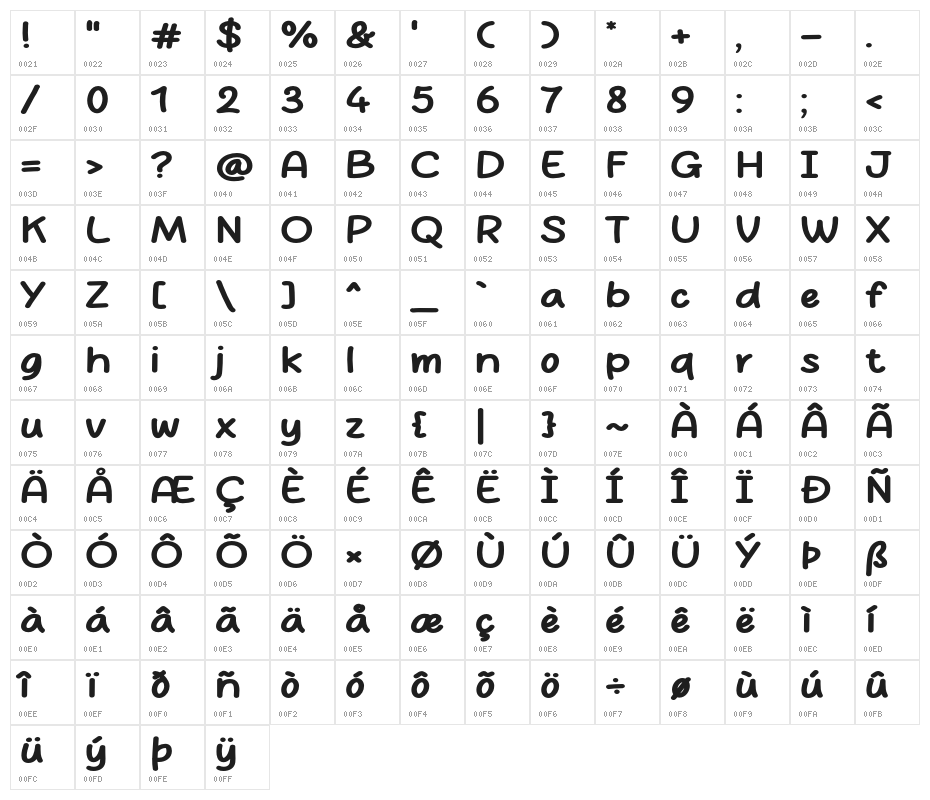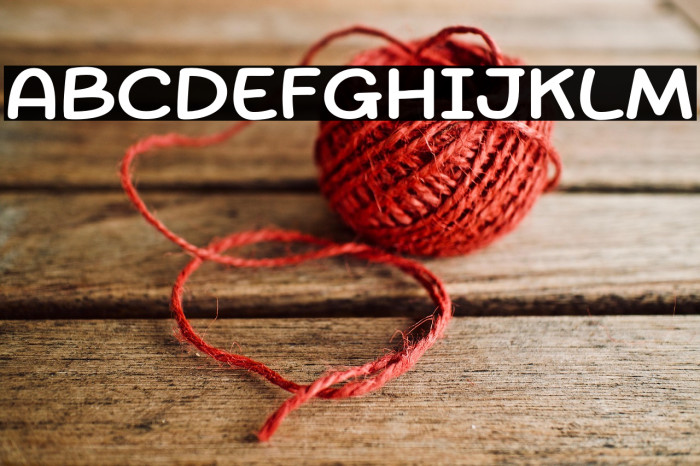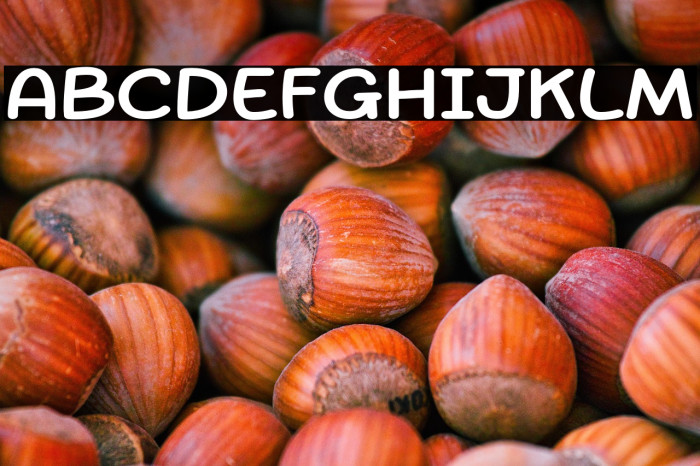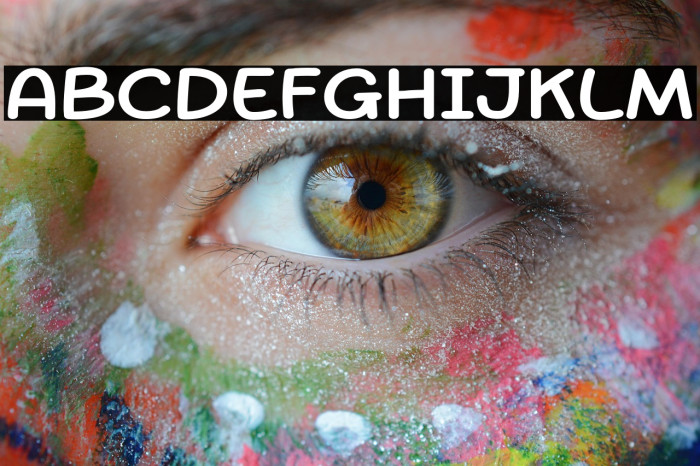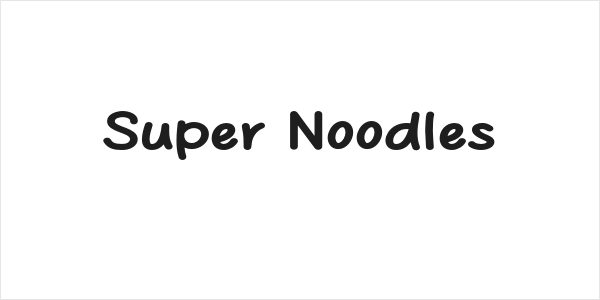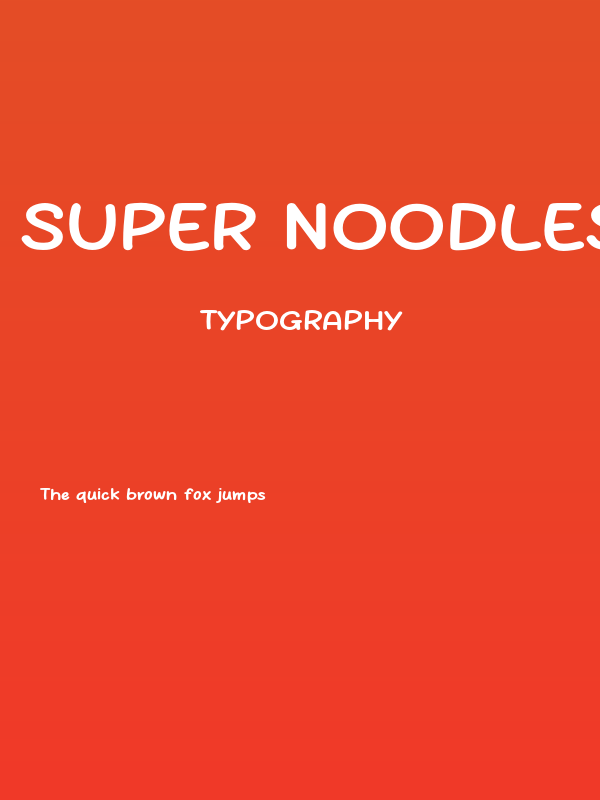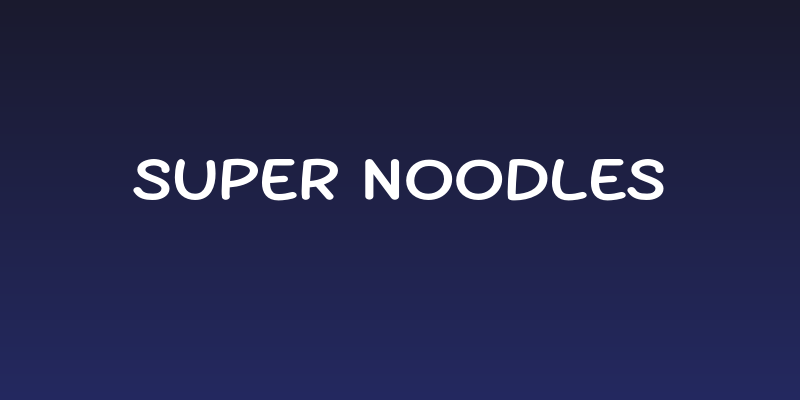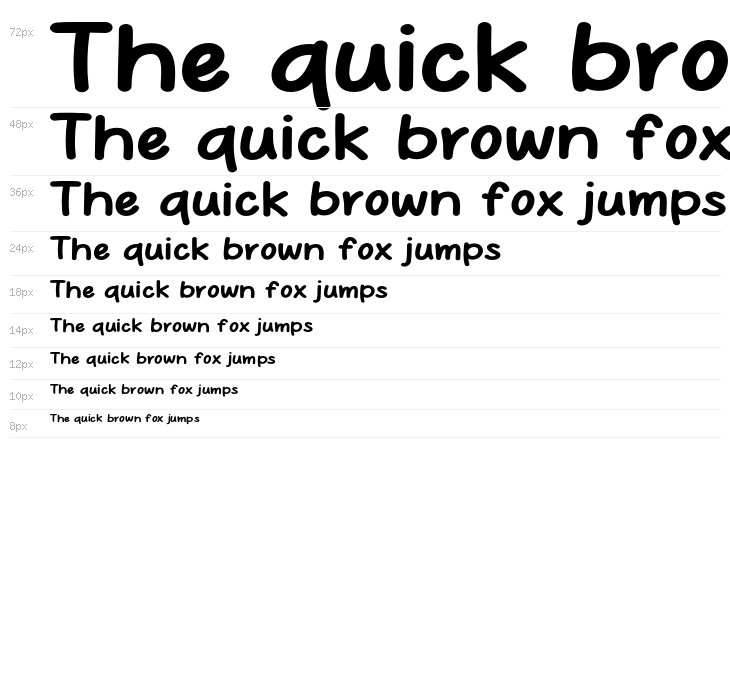
Super Noodles Font
Super Noodles Description
This playful and rounded font exudes a friendly and approachable vibe. The characters are bold with a consistent stroke width, giving them a uniform appearance. The rounded edges and slightly irregular shapes add a whimsical touch, making it ideal for informal and fun projects. The font maintains a consistent baseline, ensuring readability while the generous spacing between characters enhances its legibility. The numerals and special characters follow the same playful style, making them cohesive with the alphabet. This font is perfect for projects that aim to convey a sense of warmth and friendliness.